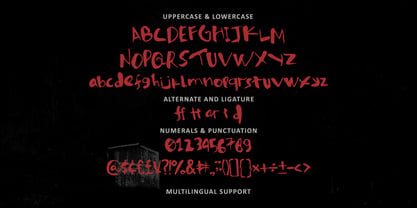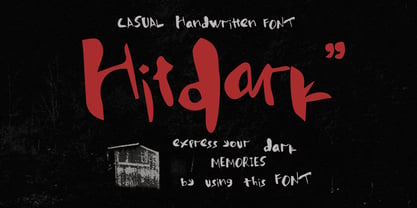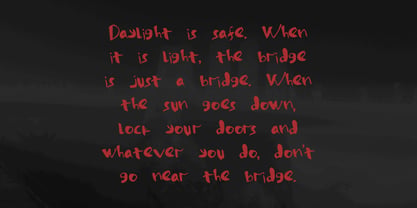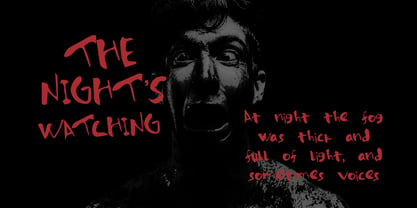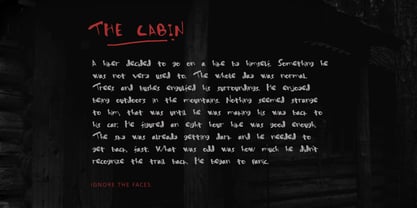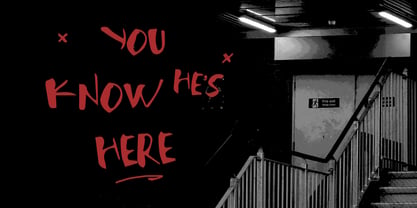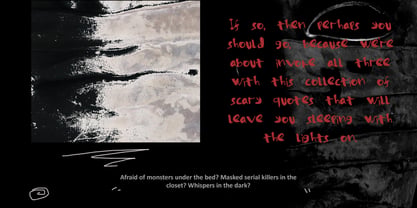
MC Hitdark
by Maulana Creative
The MC Hitdark Font Family was designed by Gilang Maulana and published by Maulana Creative. MC Hitdark contains 1 styles. More about this family
Hitdark handwritten font. Fun character with a bit of ligatures and alternates. To give you an extra creative work. This font is good for logo design, Social media, Movie Titles, Books Titles, a short text even a long text letter and good for your secondary text font with script or serif. Make a stunning work with Hitdark handwritten font.
Designers: Gilang Maulana
Foundry: Maulana Creative